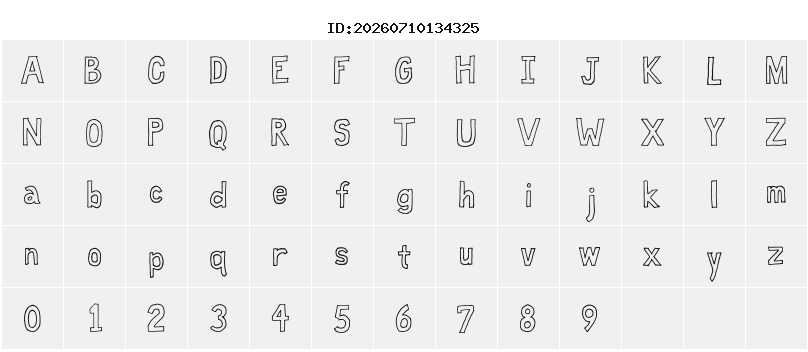
• Font Name: Fat Free
• Font ID: Fat Free
• Full Font Name: Fat Free
About Fat Free.ttf
Fat Free.ttf is a modern, elegant sans-serif font designed for ultimate readability and visual harmony. Perfect for branding, headlines, web design, and print materials.